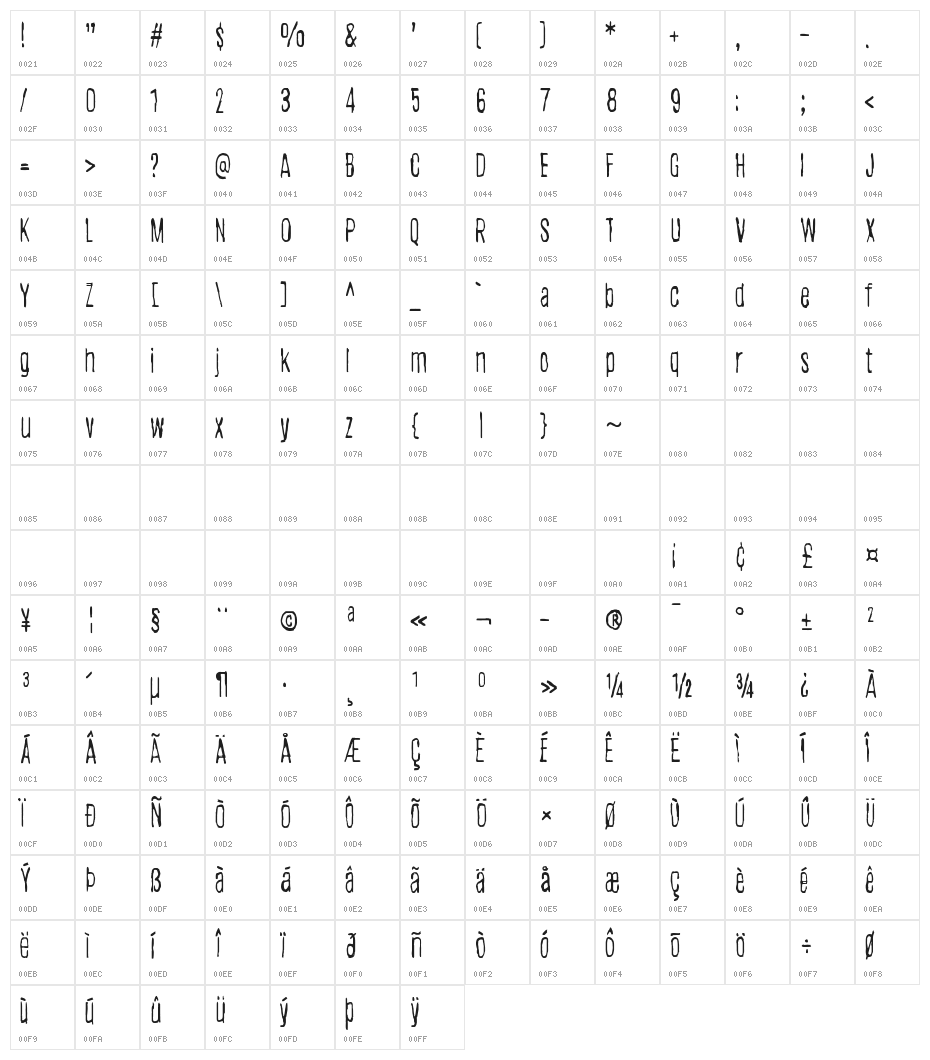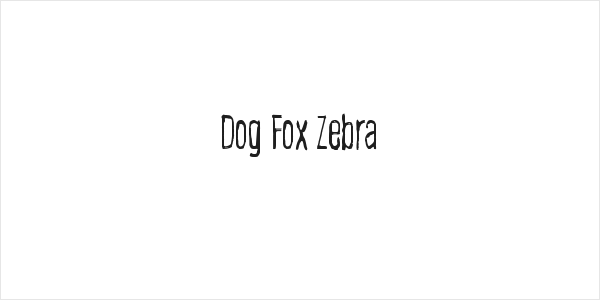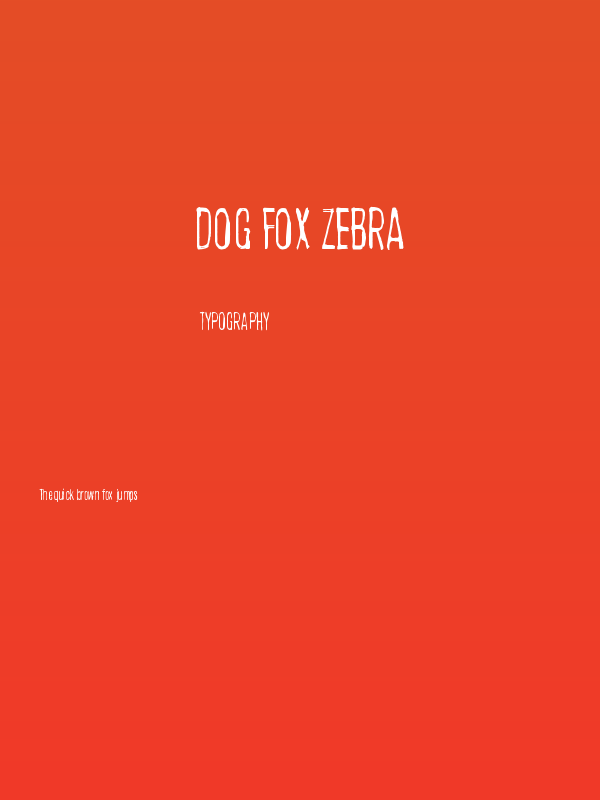
Dog Fox Zebra Font
Dog Fox Zebra Description
This font exhibits a unique, hand-drawn style with a slightly distressed appearance, giving it a rustic and organic feel. The characters are tall and narrow, with irregular edges that add to its handcrafted aesthetic. The uppercase and lowercase letters maintain a consistent style, while the numbers and special characters complement the overall design. This font's imperfect lines and varied stroke thickness contribute to its charming, artistic vibe, making it suitable for projects that require a personal touch.
| Use Case | Logos, Posters, Creative projects |
| Proposed Projects | Ideal for branding, packaging, posters, and creative projects that require a personal, artistic touch. |